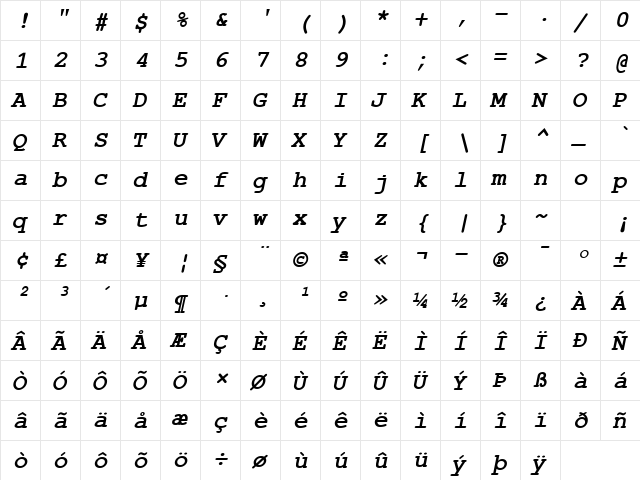
FreeMono Bold Oblique Font Preview
Design Context for FreeMono Typeface
FreeMono uses fixed-width spacing throughout, giving it the structured, systematic character associated with coding environments and technical documentation. Its italic angle brings a sense of urgency and motion to the letterforms. The heavy weight commands attention and anchors typographic hierarchies.
Pro Tip: Use FreeMono with slightly increased line-height for extended reading — fixed-width spacing can feel dense in longer passages without extra breathing room.